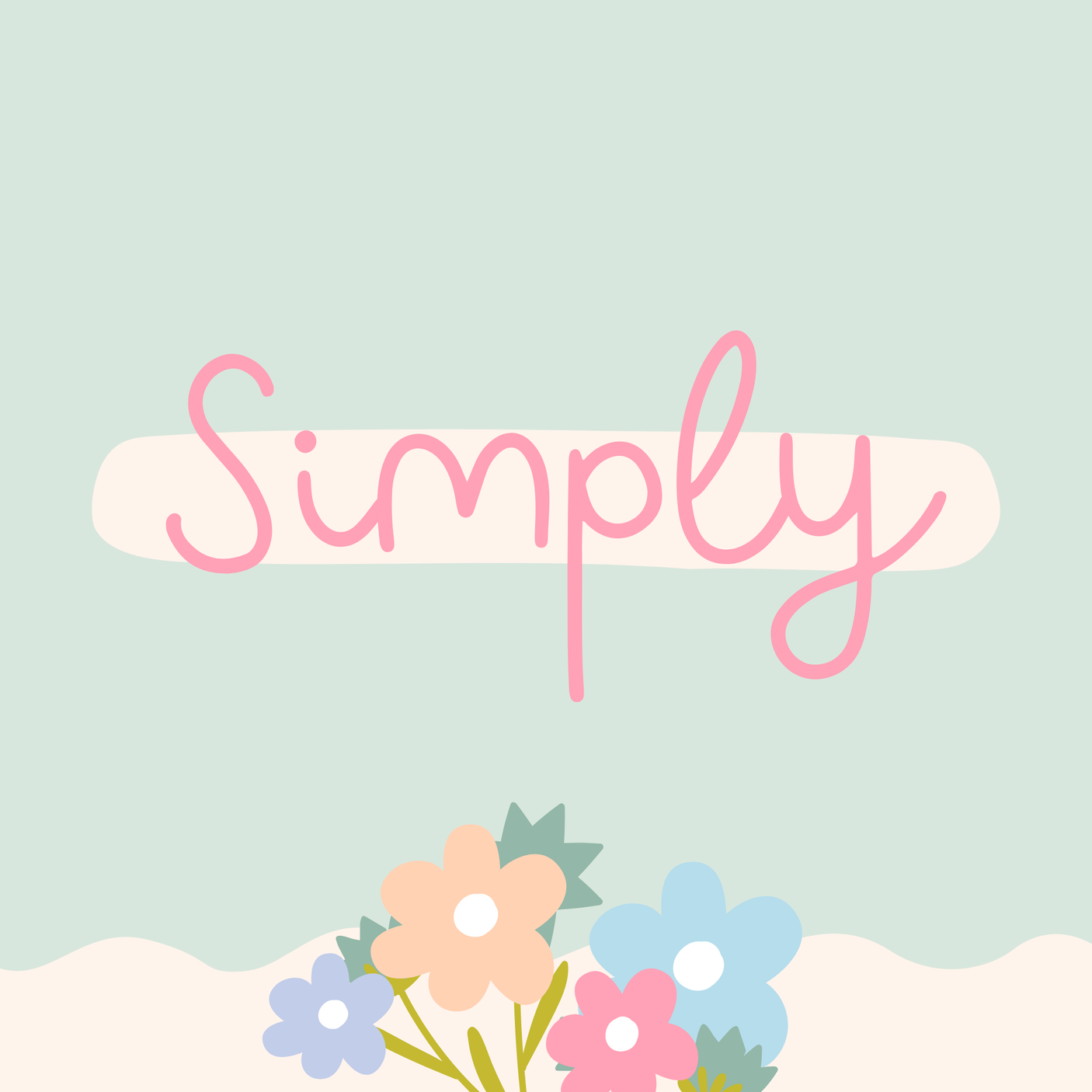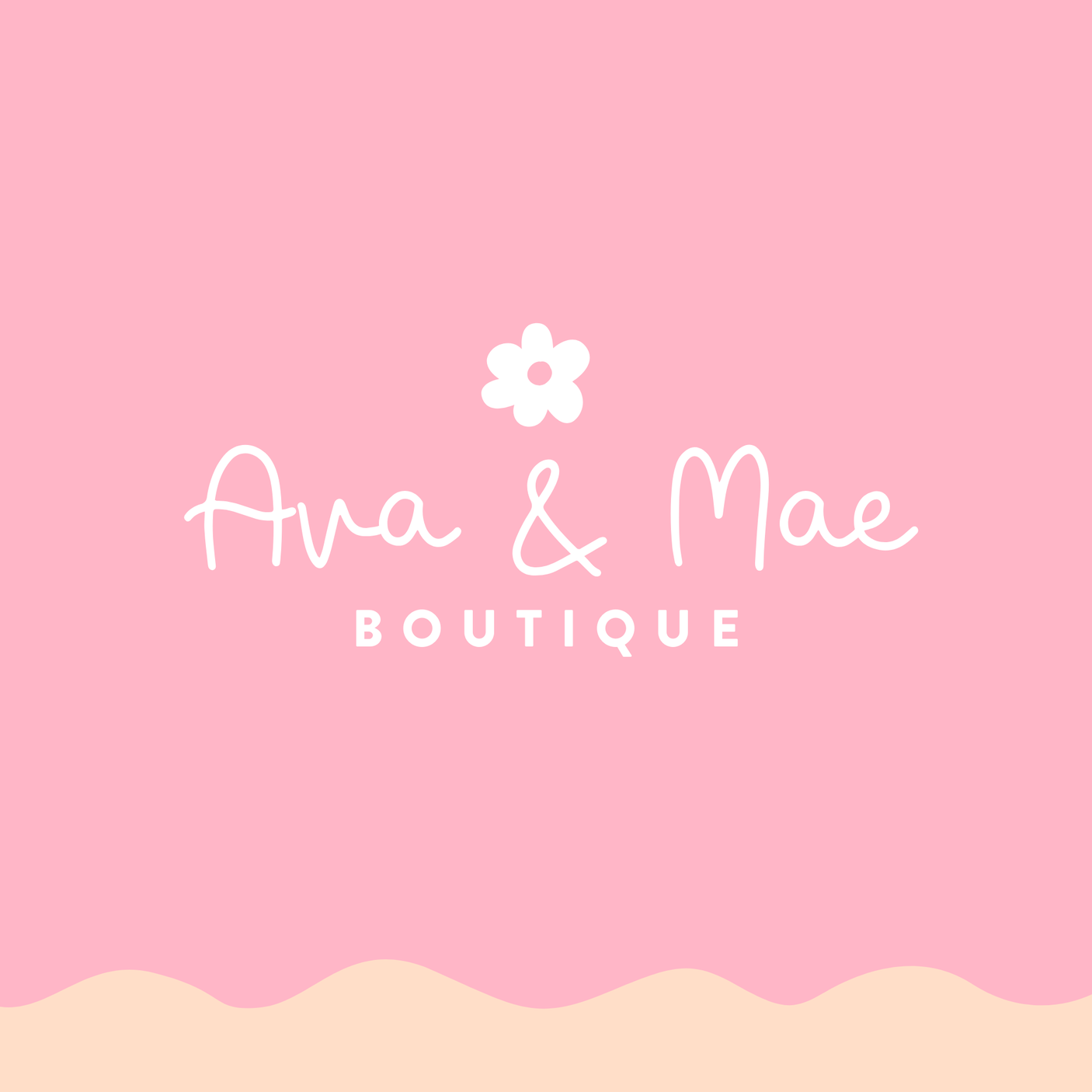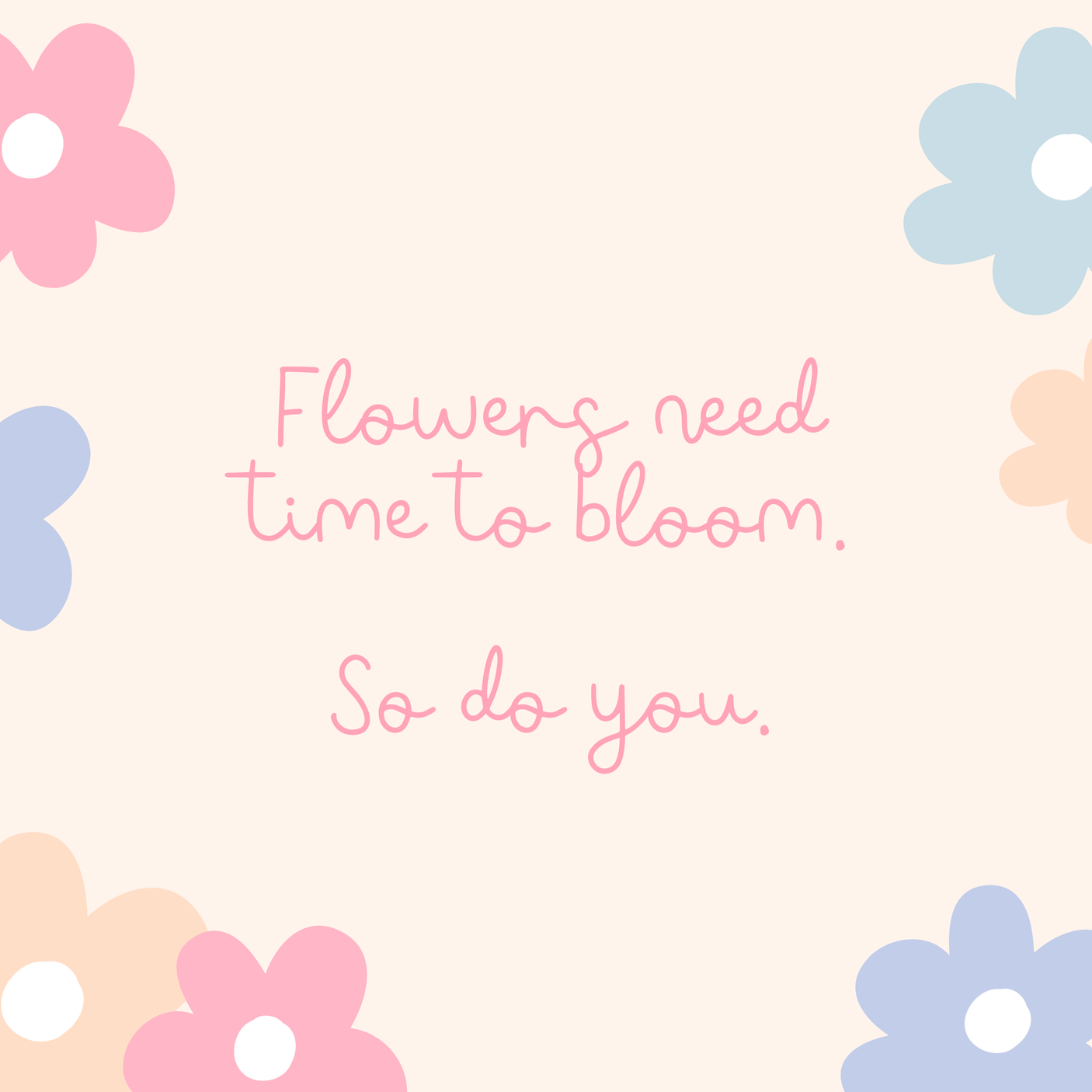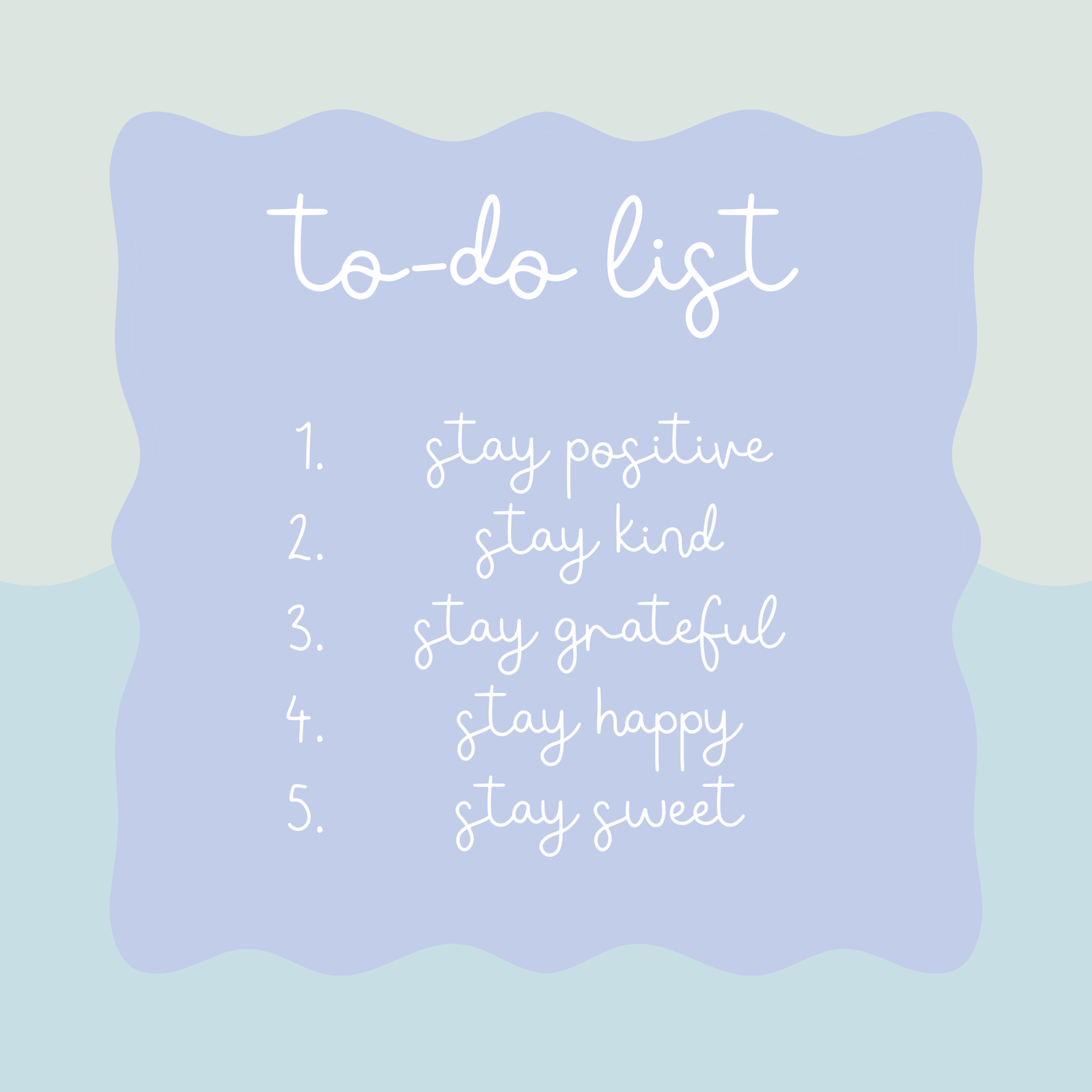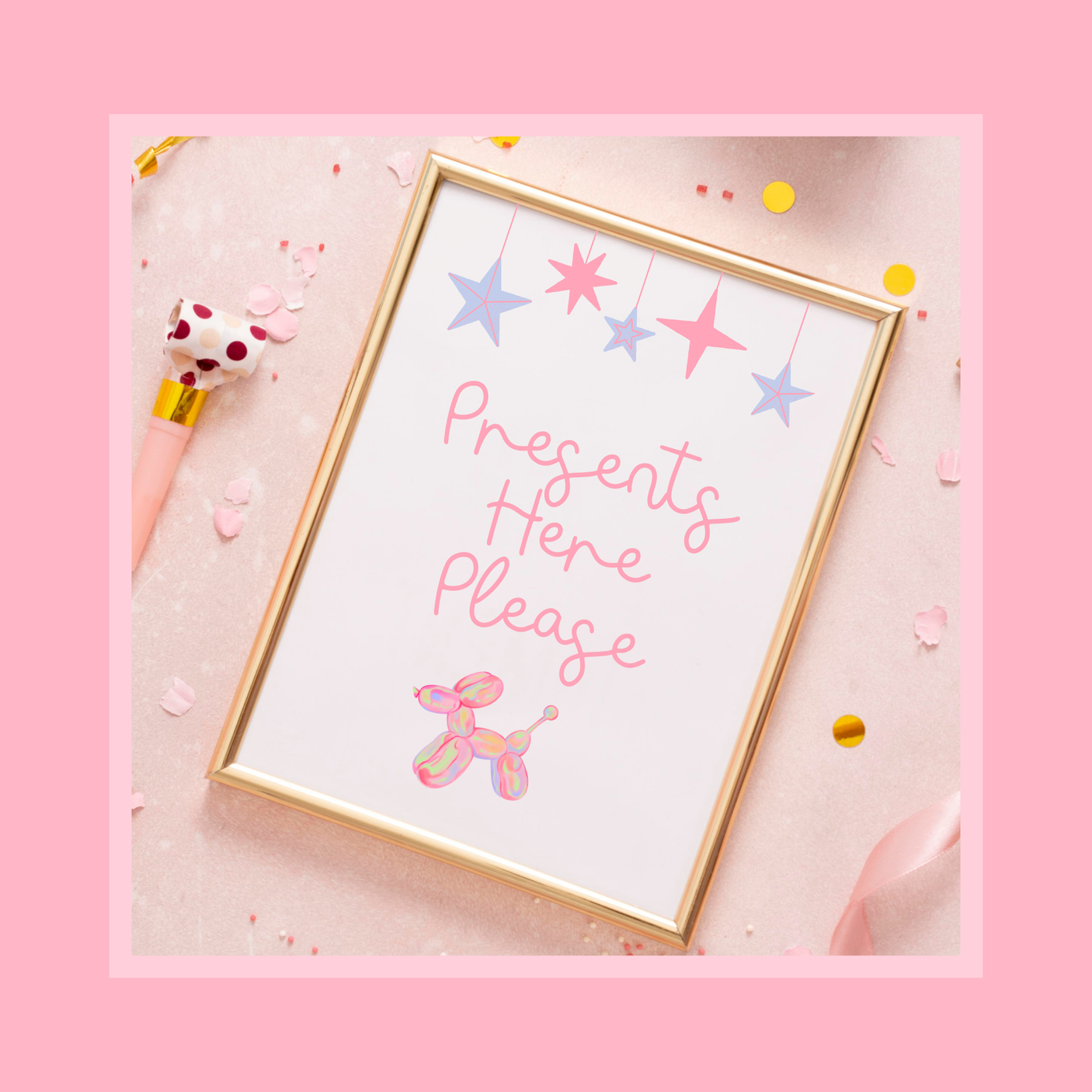
Simply Font
Add a sprinkle of charm to your designs with Simply Font, a cute handwritten script featuring quirky, unique characters and a delightful monoline style. Perfect for logos, branding, social media graphics, and anywhere you need a playful handwritten touch, Simply Font is your new design bestie!
Its fun and versatile style makes it ideal for creative projects that call for a personal and whimsical vibe. Whether you're crafting product packaging, designing invitations, or creating digital content, Simply Font is the perfect way to add a cheerful, creative flair.